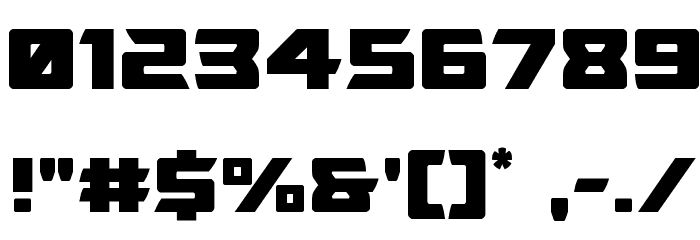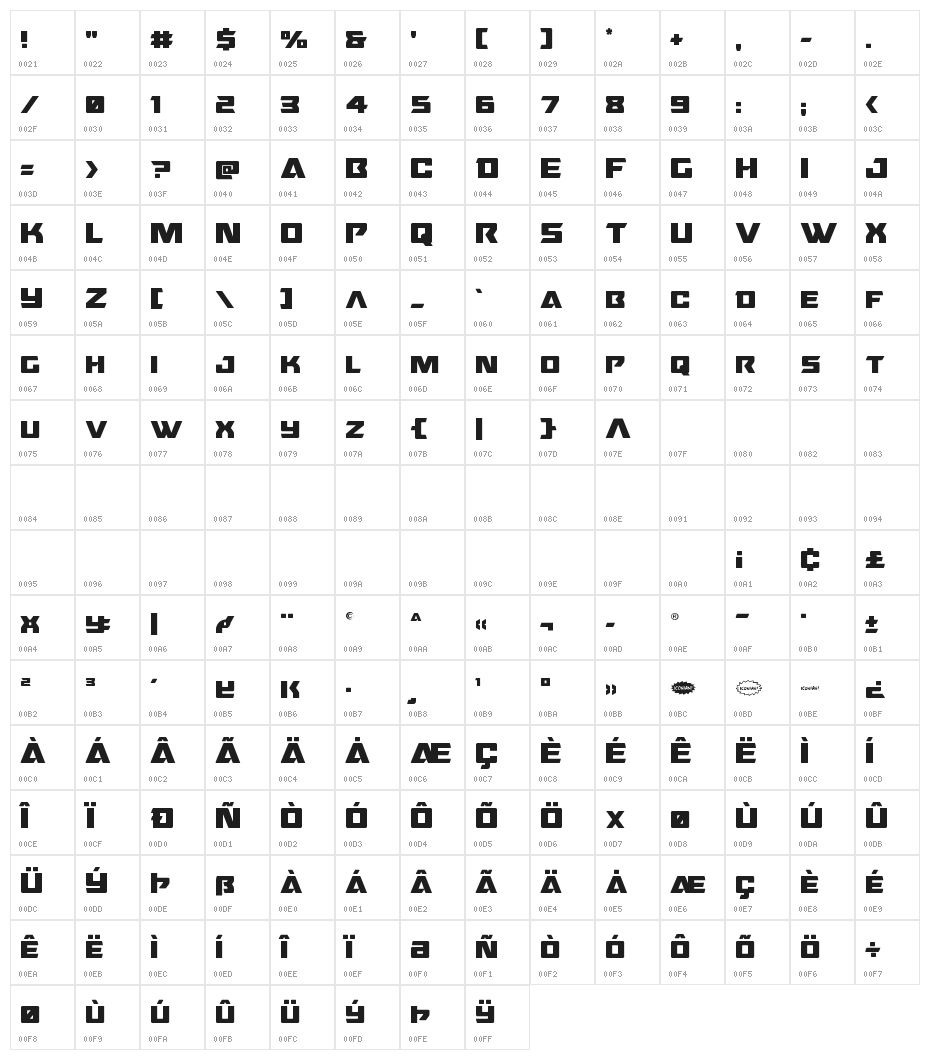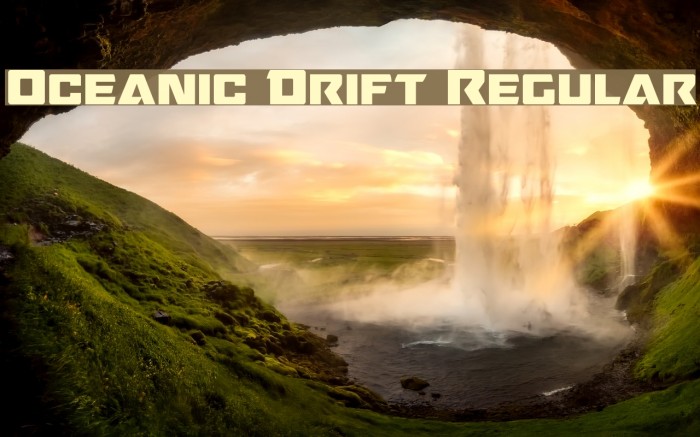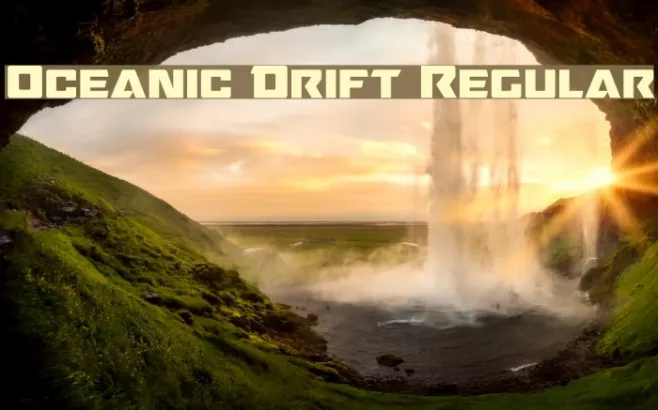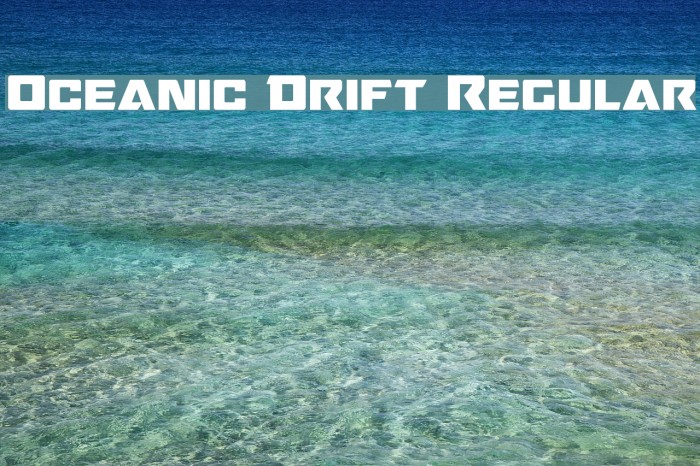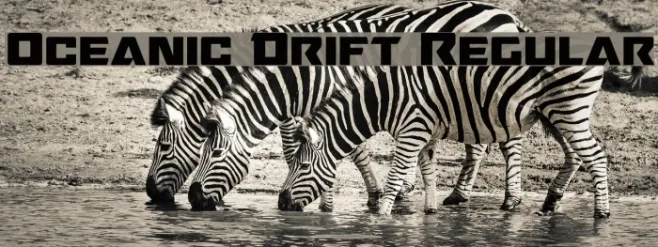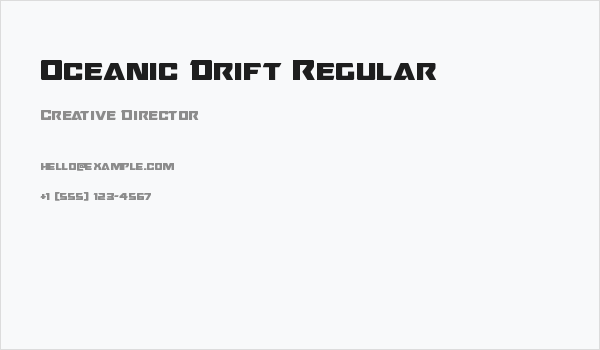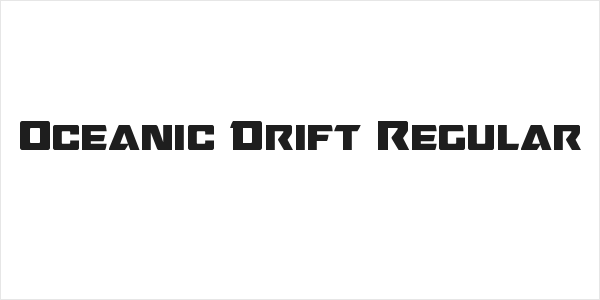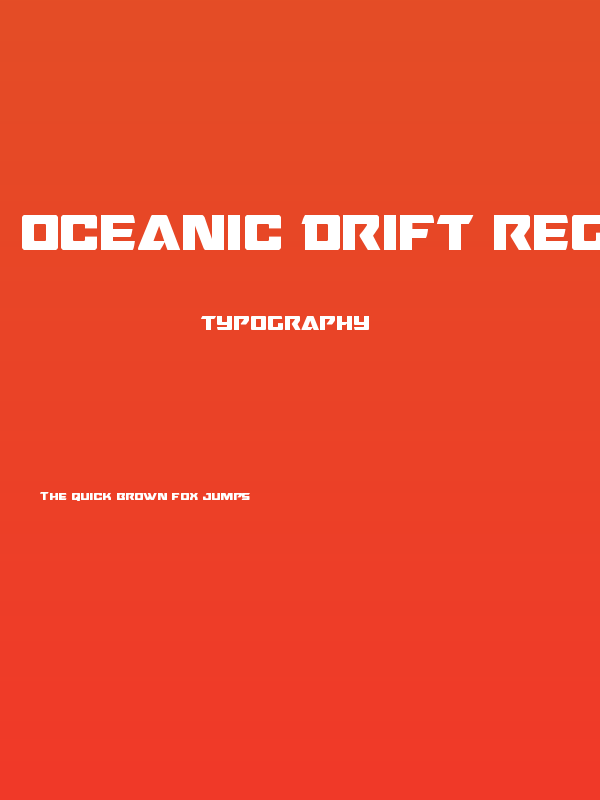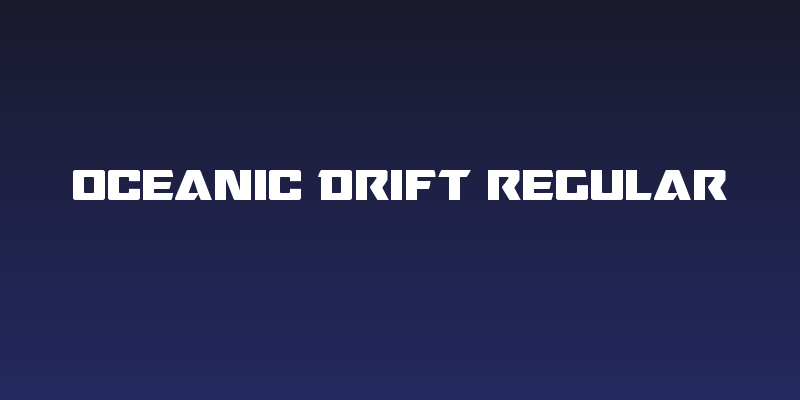
Oceanic Drift Regular Font
Oceanic Drift Regular Description
This font features a bold, geometric style with strong, angular lines and a futuristic aesthetic. The characters are wide and blocky, giving a sense of stability and strength. The uppercase letters are particularly striking, with sharp edges and a uniform height that creates a cohesive look. The numerals and special characters maintain this boldness, ensuring consistency across all text elements. The font's design is modern and dynamic, making it suitable for projects that require a strong visual impact.
| Proposed Projects | Ideal for branding, posters, headlines, and any design that requires a strong, modern aesthetic. |